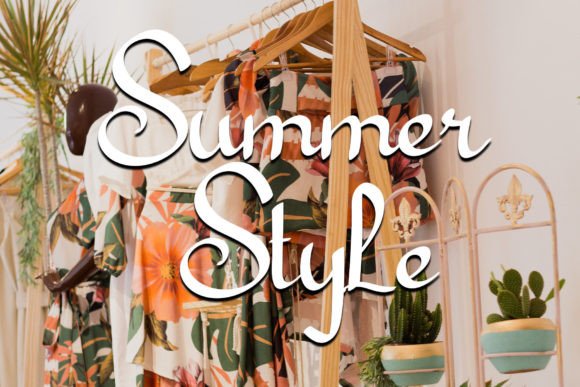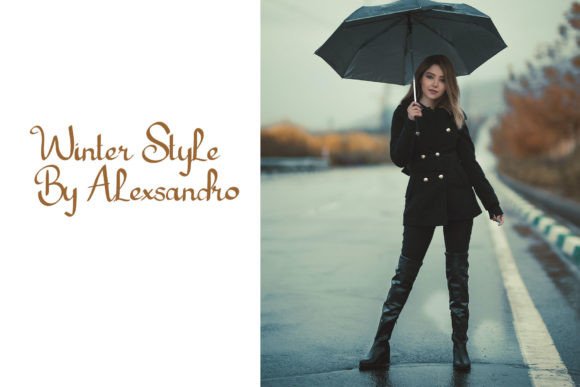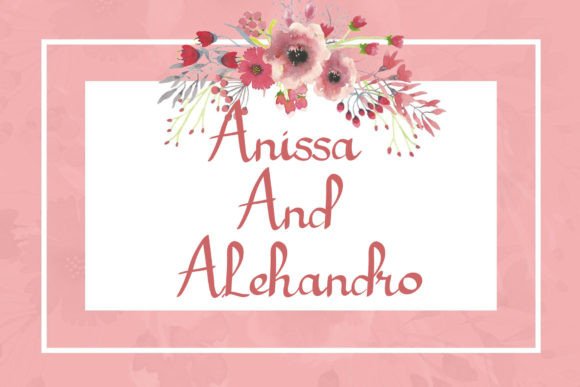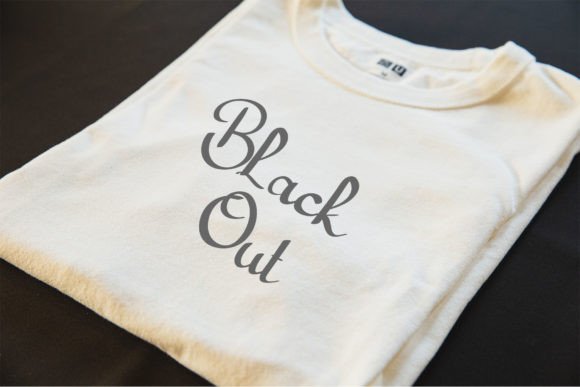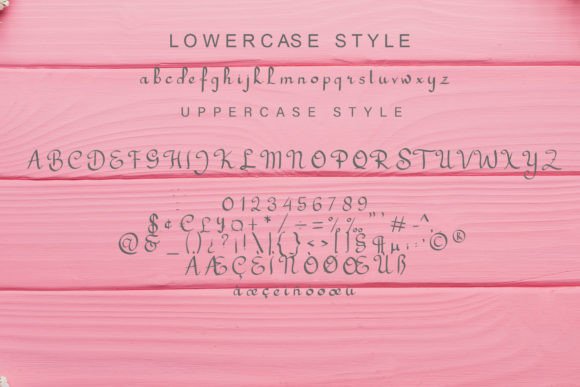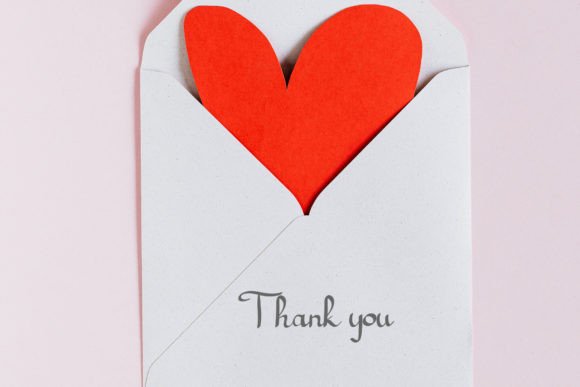
The Elusive Perfect Font: My Encounter with Black Out
I’ll never forget the time I was working on a project for a client who wanted a unique, handwritten font to give their brand a personal touch. I spent hours scouring the internet, trying out font after font, but nothing seemed quite right. That was until I stumbled upon Black Out, a delicate handwritten font that caught my eye. In this article, I’ll share my experience with Black Out, its features, and how to make the most of it in your designs.
An Honest Review of Black Out
So, what makes Black Out special? Here are a few things I love about this font:
• ✨ Unique and eye-catching: Black Out has a distinctive, hand-crafted feel that sets it apart from more generic fonts.
• ✅ Versatile: This font can be used for a wide range of projects, from letters and invitations to food product labels and titles.
• 💫 Elegant and sophisticated: Black Out has a refined, elegant feel that’s perfect for designs that need a touch of class.
Of course, no font is perfect, and Black Out has a few quirks:
• 🤔 Limited character set: While Black Out has a wide range of characters, it may not have every special character or glyph you need.
• ⚠️ May not be suitable for body text: Due to its delicate nature, Black Out may not be the best choice for long blocks of body text.
The Story Behind Black Out
Black Out was designed by a talented typographer who wanted to create a font that was both elegant and unique. The designer’s inspiration came from a combination of traditional calligraphy and modern digital design. The result is a font that’s both refined and eye-catching.
What is the best use for Black Out? Black Out is perfect for designs that need a touch of elegance and sophistication, such as invitations, titles, and food product labels.
Is Black Out suitable for body text? No, Black Out is a delicate font that’s best suited for headings and titles. For body text, a clearer font may be more suitable.
Is Black Out available in different languages? Black Out may not have full language support, but it does include a range of characters and glyphs that can be used for international designs.